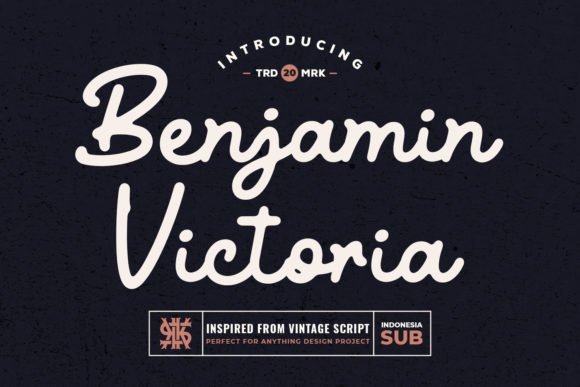
Introduction to Benjamin Victoria Font
Benjamin Victoria is a vintage styled, cursive and well balanced script font.
It is suitable for logos, stationery art, quotes, book covers, magazines, branding, and much more Add it to your most unique ideas and make them stand out.